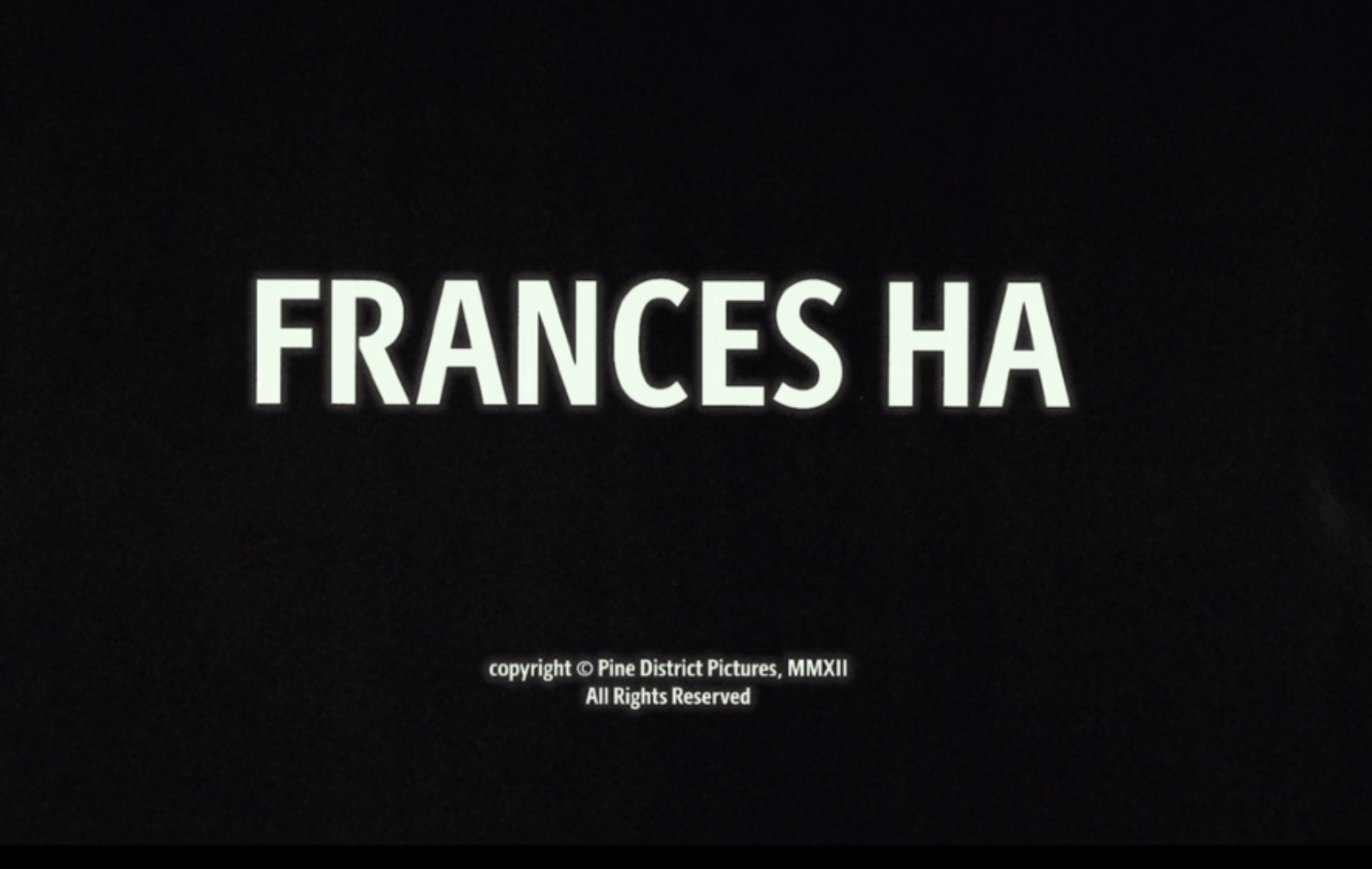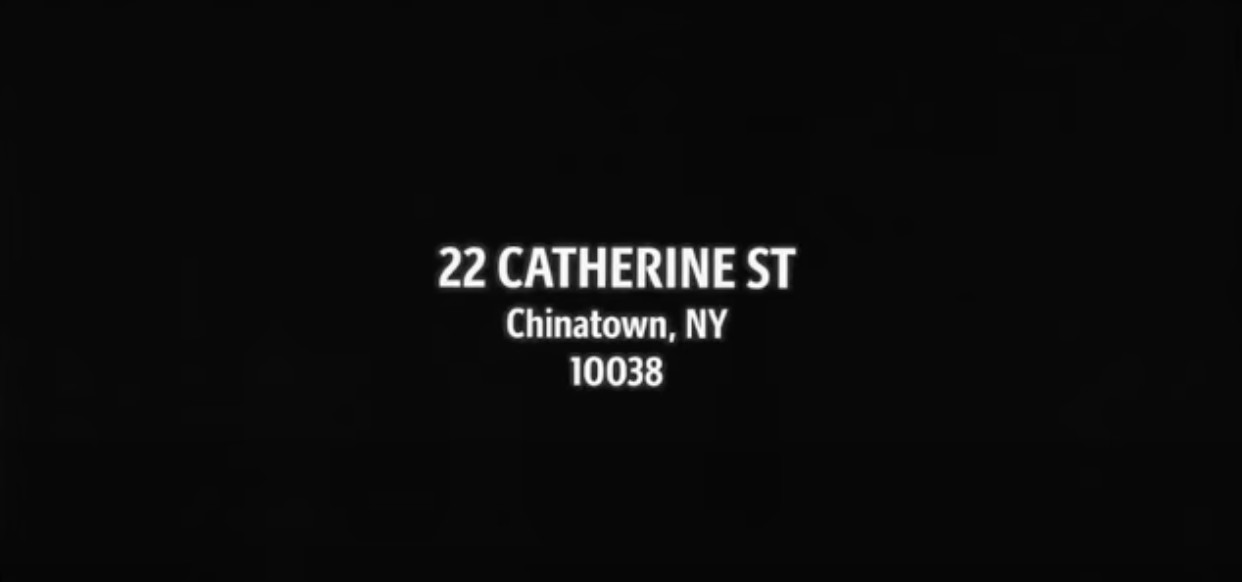
The font used in the title sequences/chapter transitions in Frances Ha. Bold Serif with space between the Stem and Arm (?) of the Capital R
All in the title.
Looking for the name of the focal typeface used in Frances Ha (not the one on the poster, but within the film itself.)
Appears in the chapter transitions.
Distinct R glyph.
Bartholeme Sans